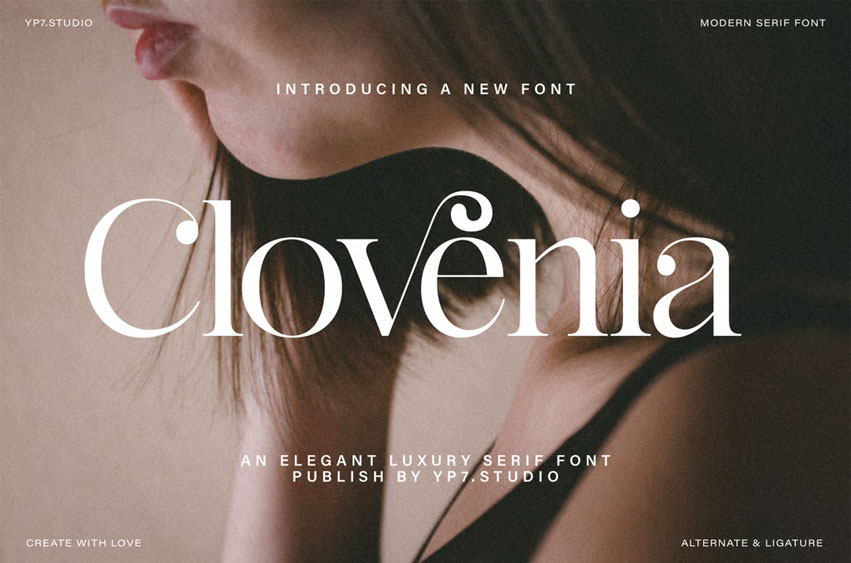
Clovenia Font
Clovenia Font Elegant Luxury Serif Font – Clovenia.
Every letter has a unique and beautiful touch, which will make your design come alive!